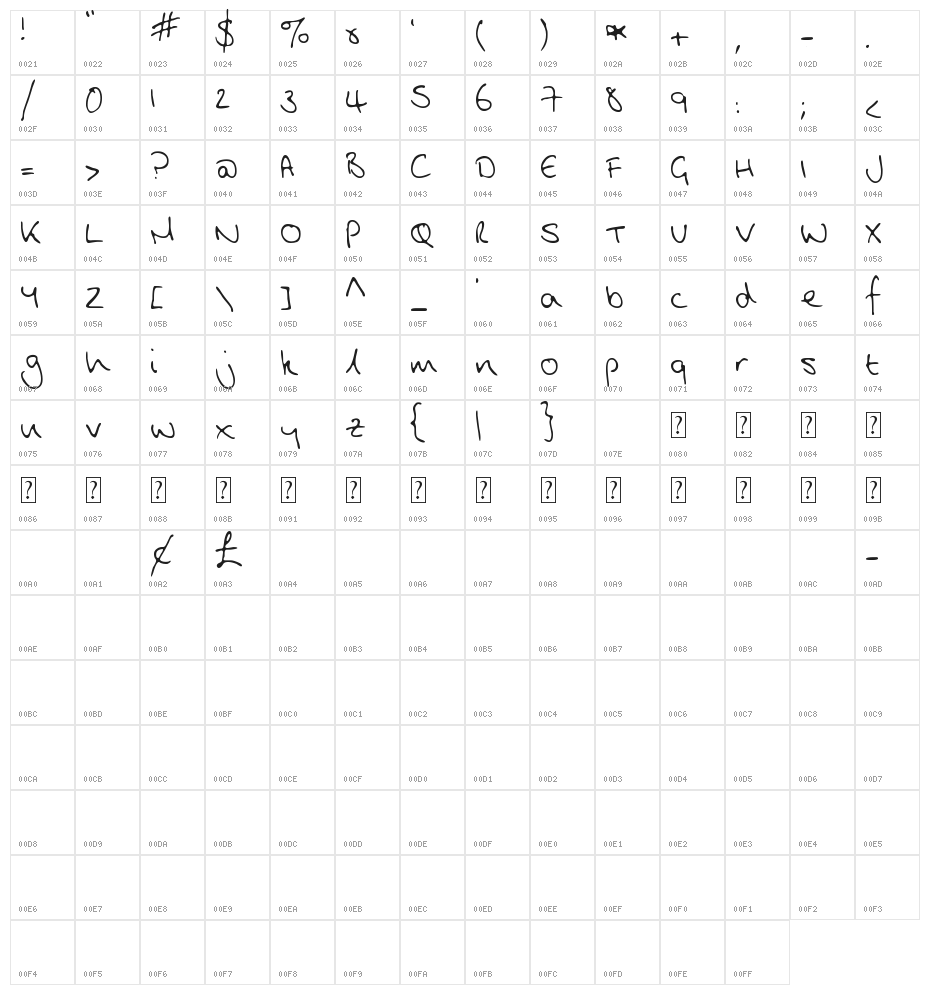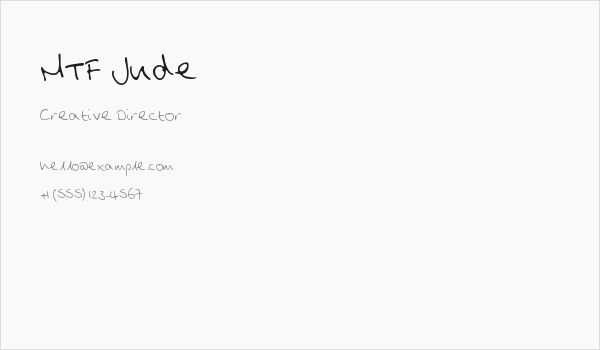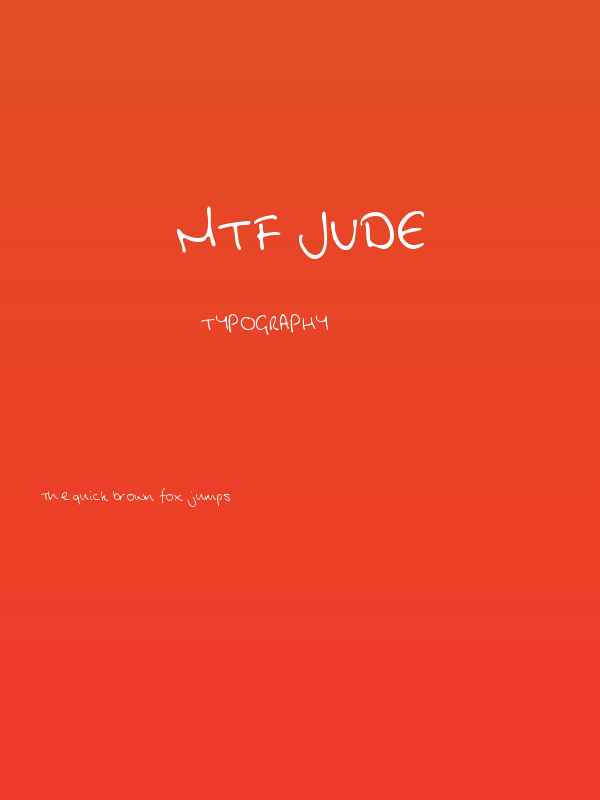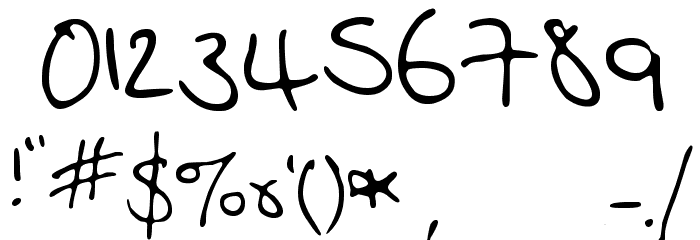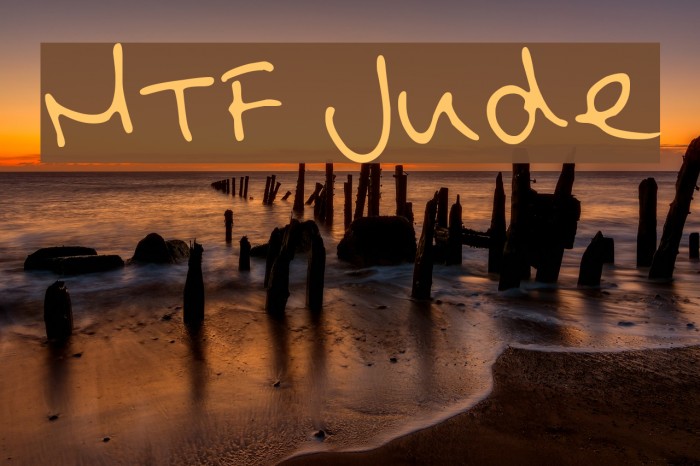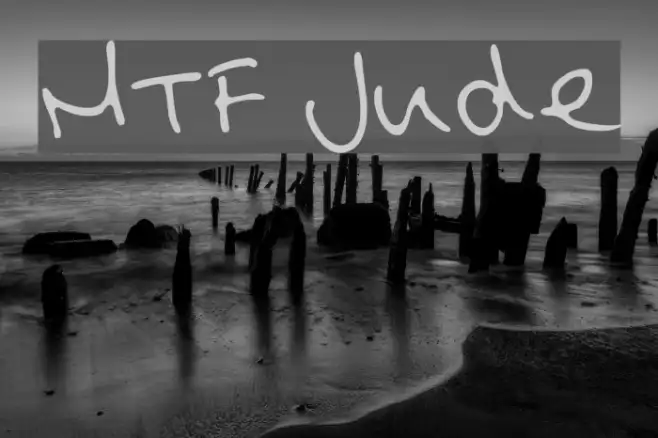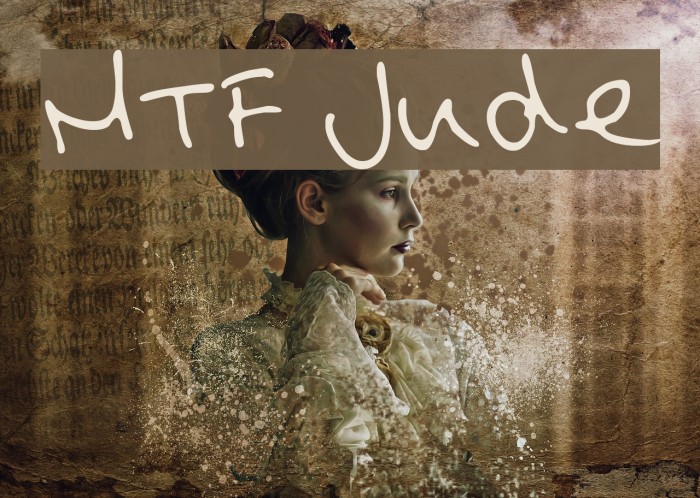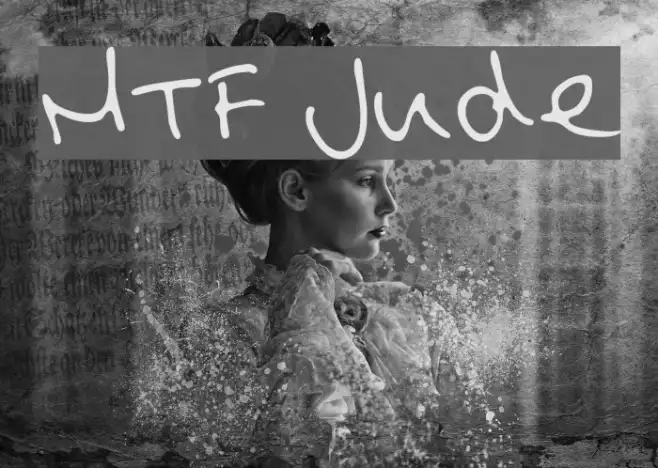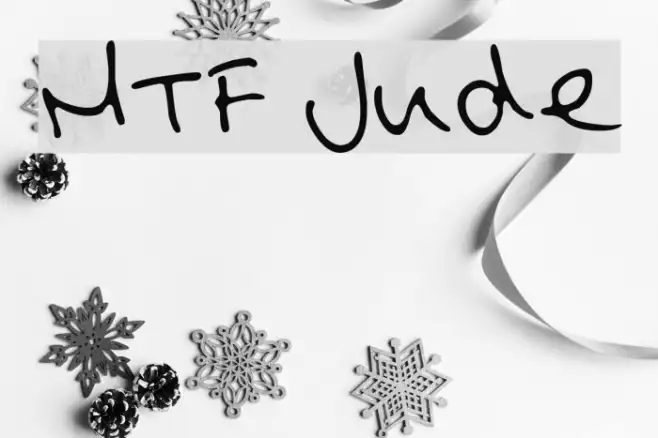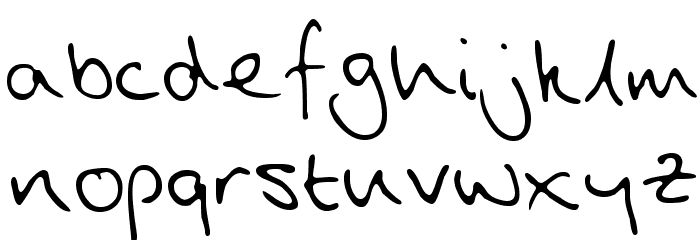
MTF Jude Font
MTF Jude Description
This font exudes a casual and friendly handwritten style, characterized by its smooth, flowing strokes and slightly irregular letterforms. The uppercase and lowercase letters maintain a consistent, playful appearance, with rounded edges and a natural, organic feel. The numerals and special characters complement the alphabet with their similarly relaxed and approachable design. This font is ideal for projects that aim to convey a personal touch or a sense of informality, making it suitable for invitations, greeting cards, and creative branding.
MTF-JUDE UPPERCASE
MTF-JUDE LOWERCASE
MTF-JUDE OTHER CHARS
| Overall Style | Casual, Friendly |
| Use Case | Headlines, Informal text, Creative branding |
| Proposed Projects | Ideal for invitations, greeting cards, personal branding, and creative projects. |